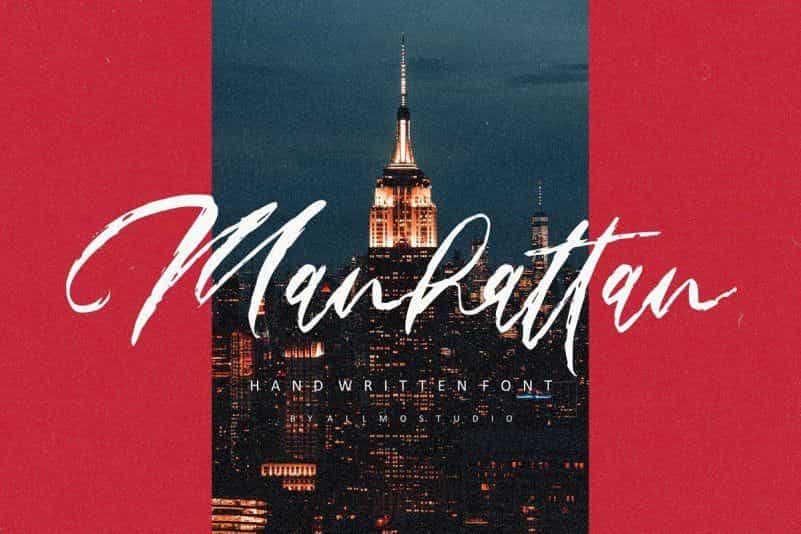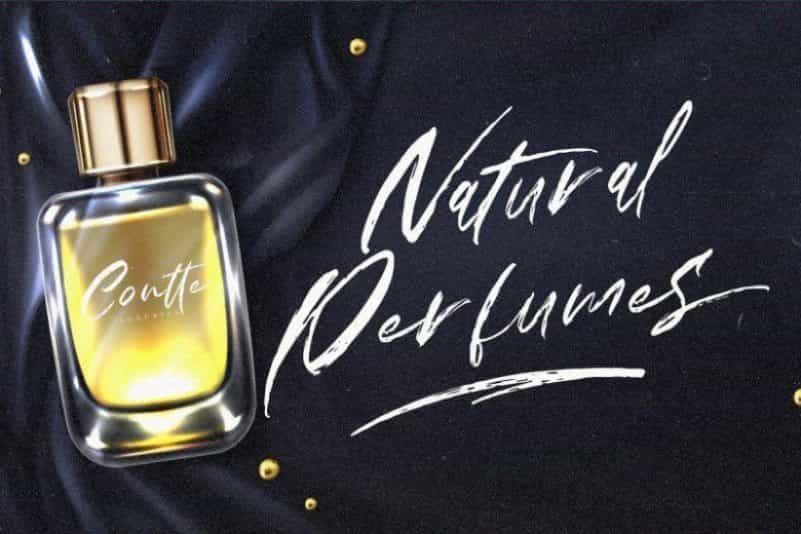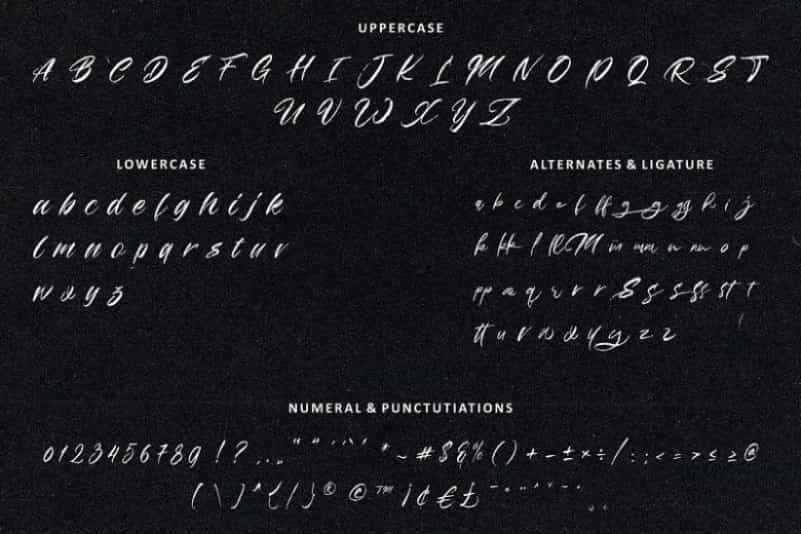
Manhattan is another script font that is drawn with a brush for that natural feeling. It supports all languages. This pack includes initial, final, and alternate letters to let you take your lettering to the next level of class.